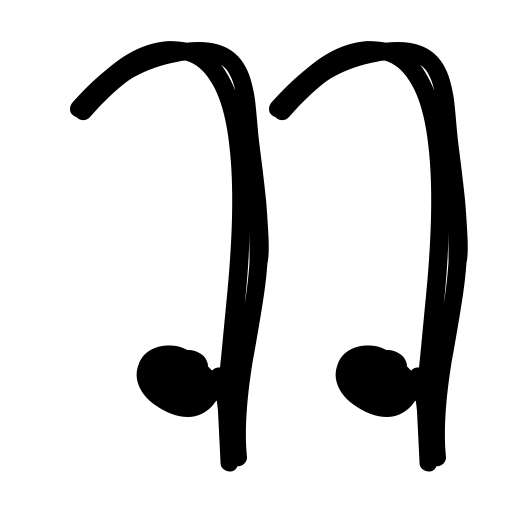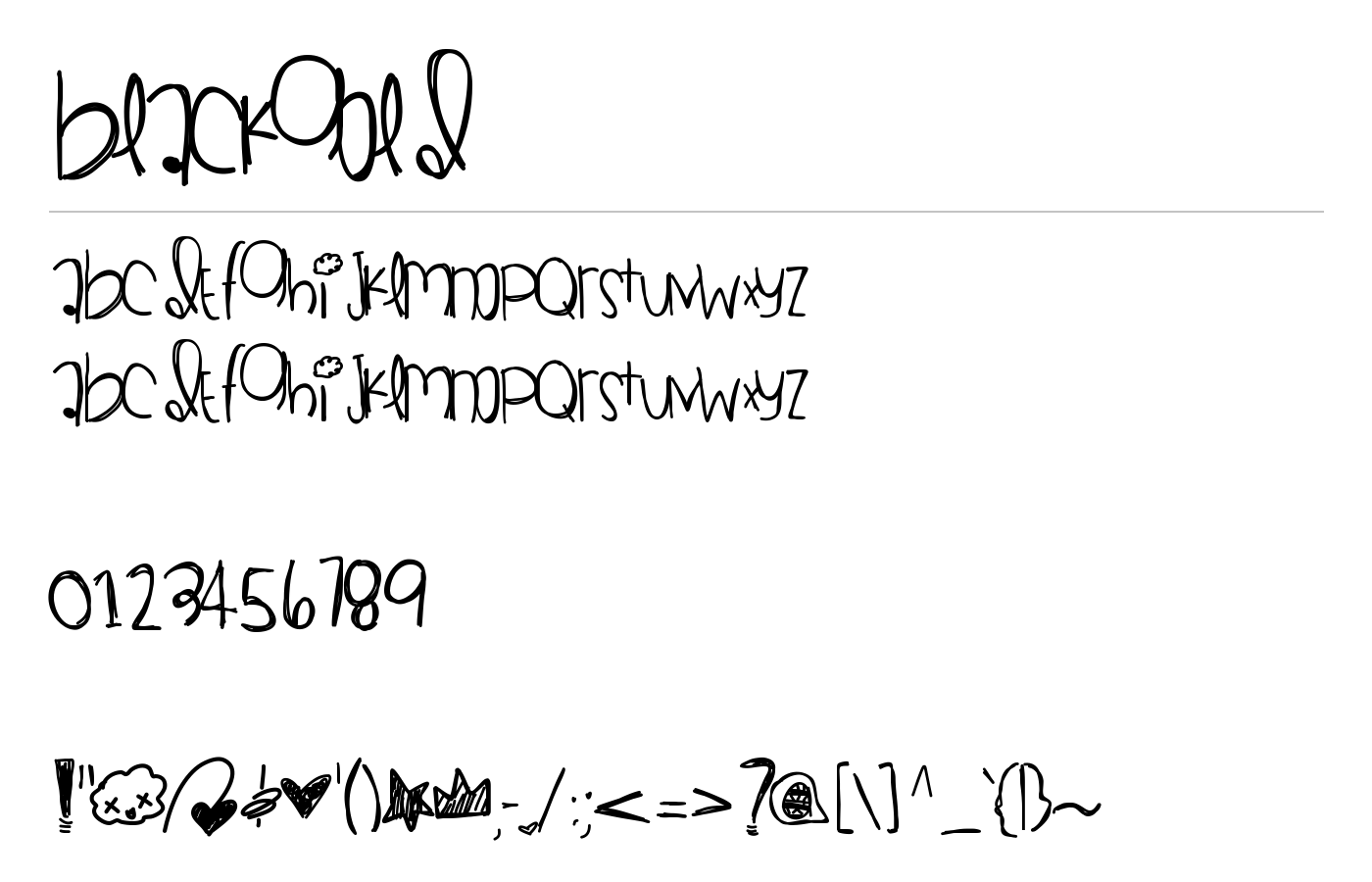
Blackgold is a playful and quirky handwritten font with a light and airy feel, featuring tall, narrow letterforms and whimsical details like heart and star shapes integrated into characters. Its casual, uneven strokes and unique glyph decorations make it perfect for creative projects that want to convey fun, individuality, and a youthful vibe. This font works best for informal designs such as greeting cards, posters, and branding that thrives on charm and personality rather than formality.
Blackgold Font
About Blackgold Font